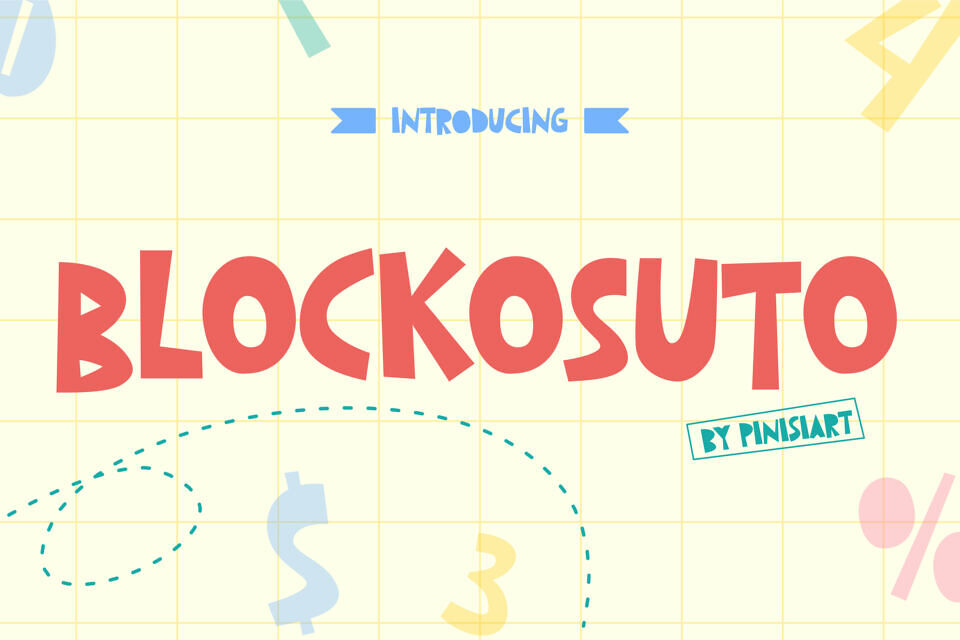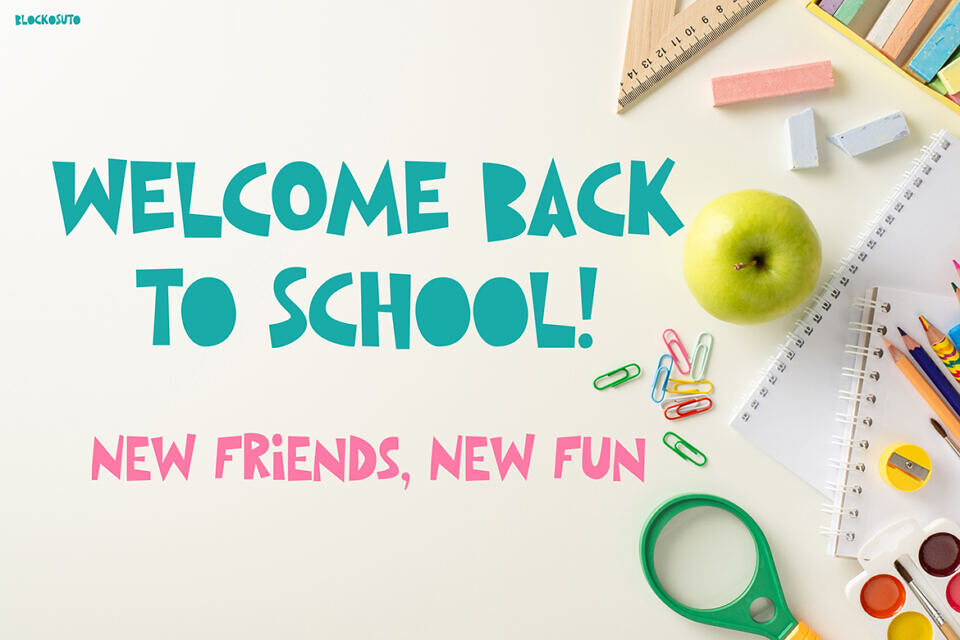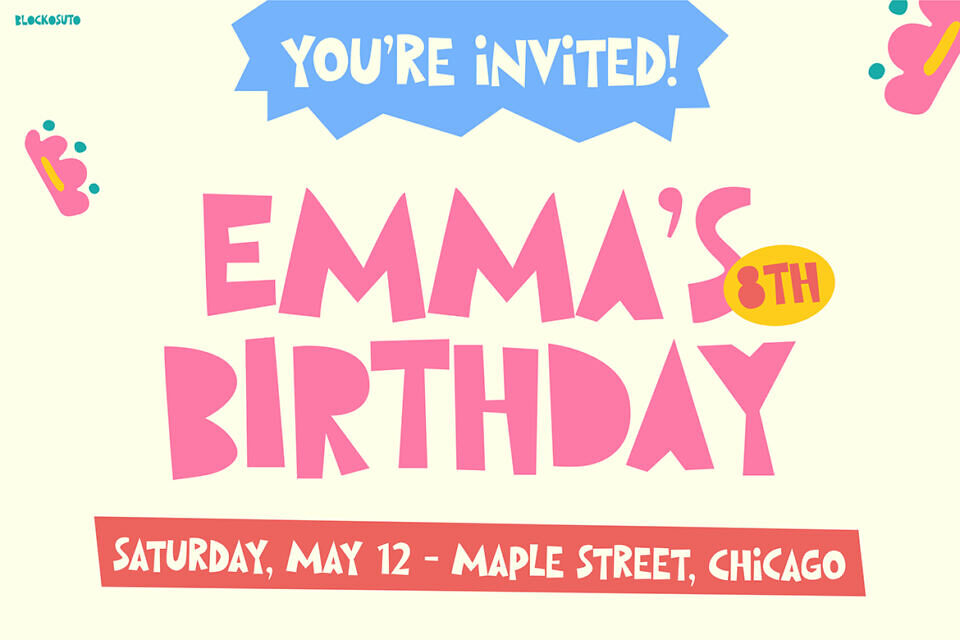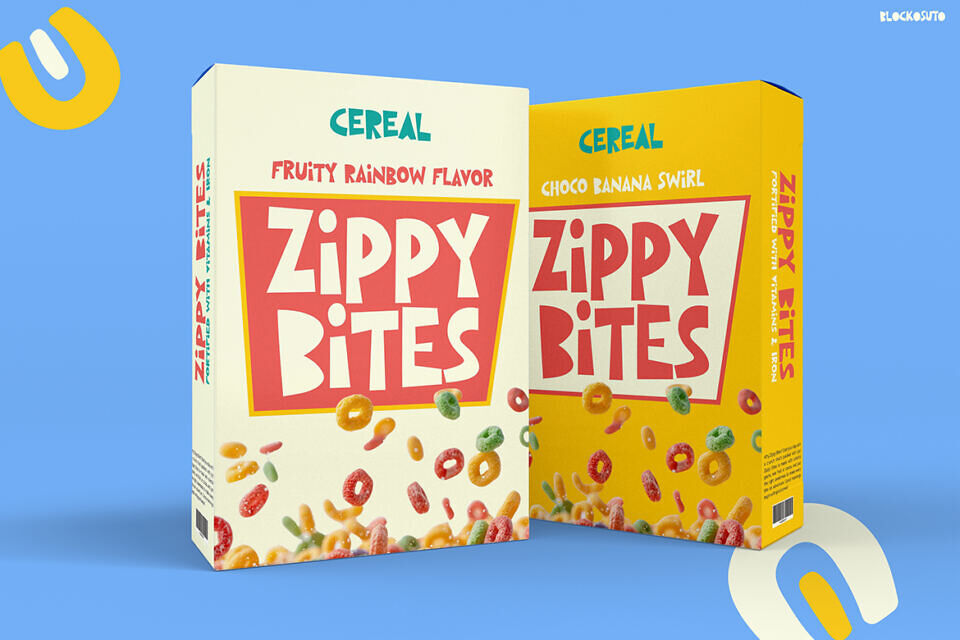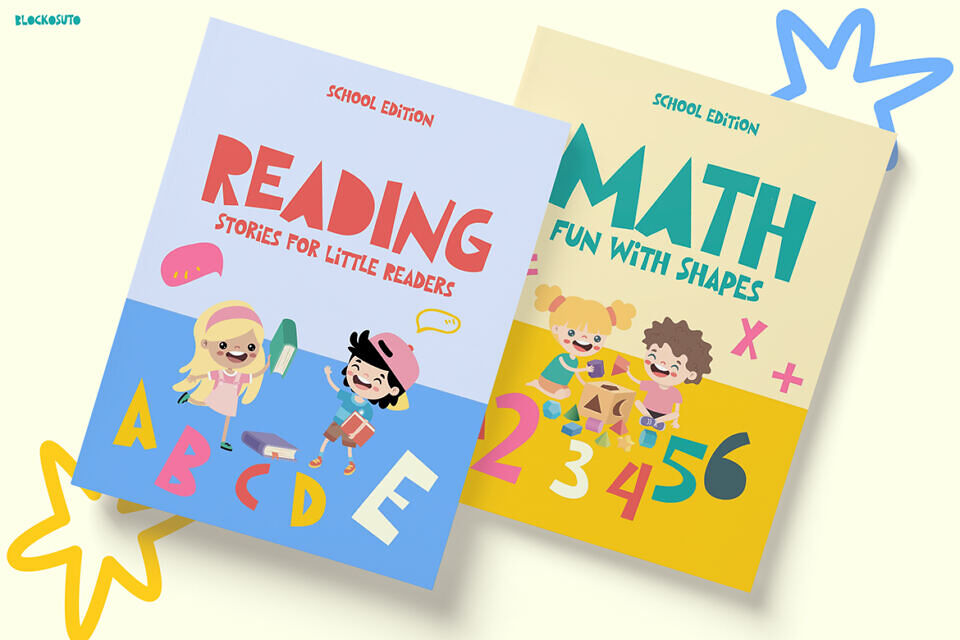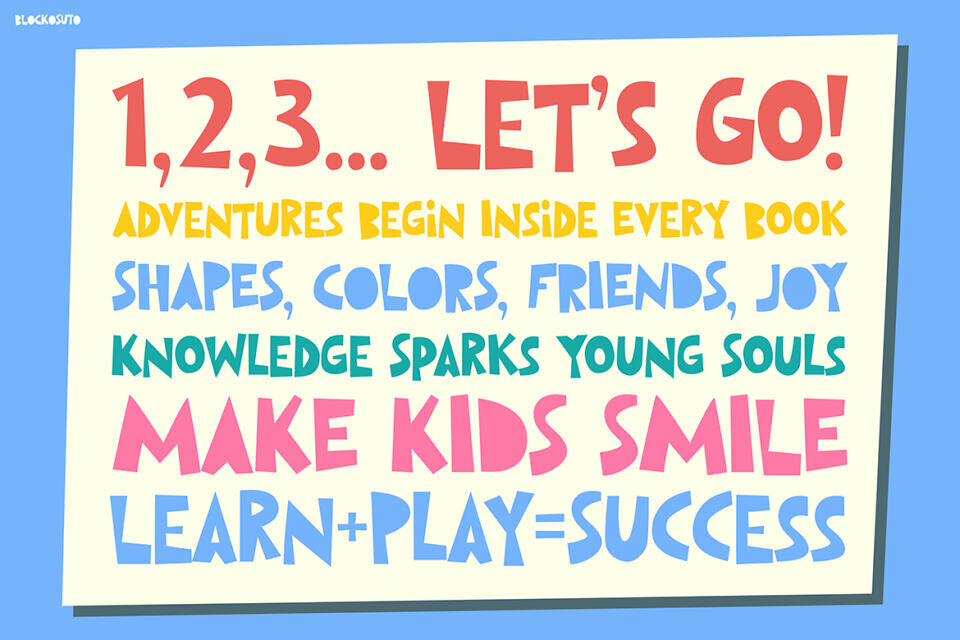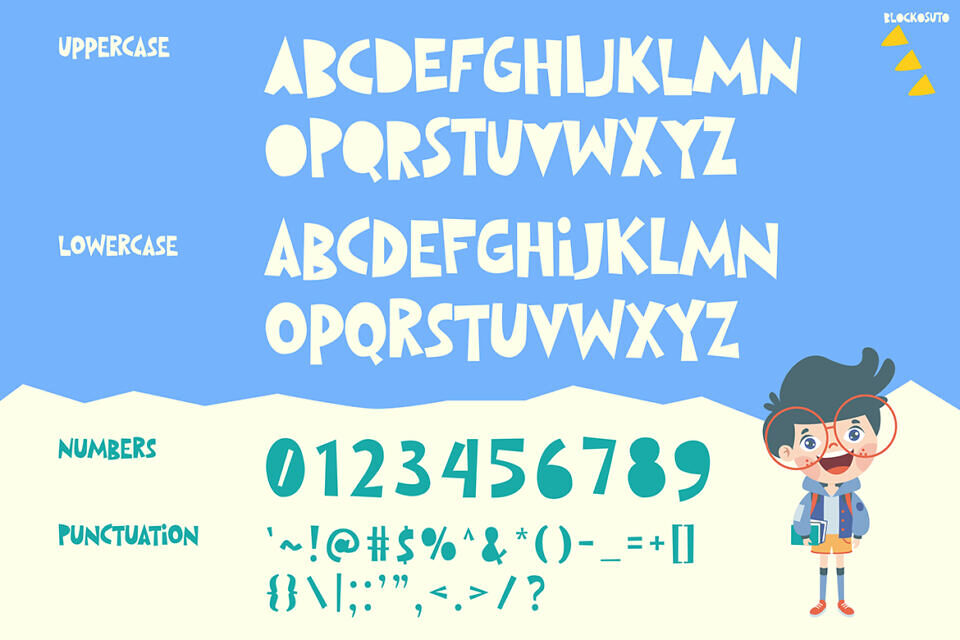
Blockosuto is a kids font designed to spark joy and imagination through bold geometric shapes, soft curves, and playful edges. Each character resembles a building block, making it both fun and functional for bright posters, learning materials, and creative projects.
Perfect for teachers, parents, and designers, Blockosuto adapts seamlessly to classroom resources, birthday invitations, children’s books, packaging, and social media graphics. With its cheerful personality and strong readability, this unique kids font ensures every design feels colorful, engaging, and kid-friendly.